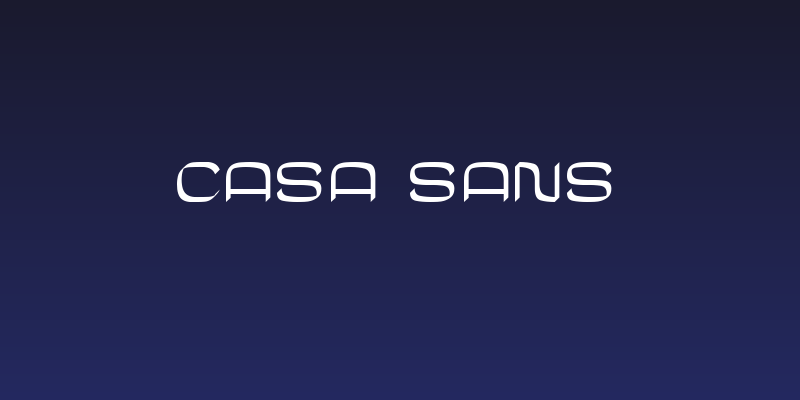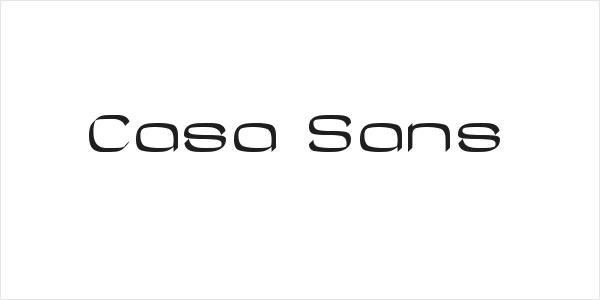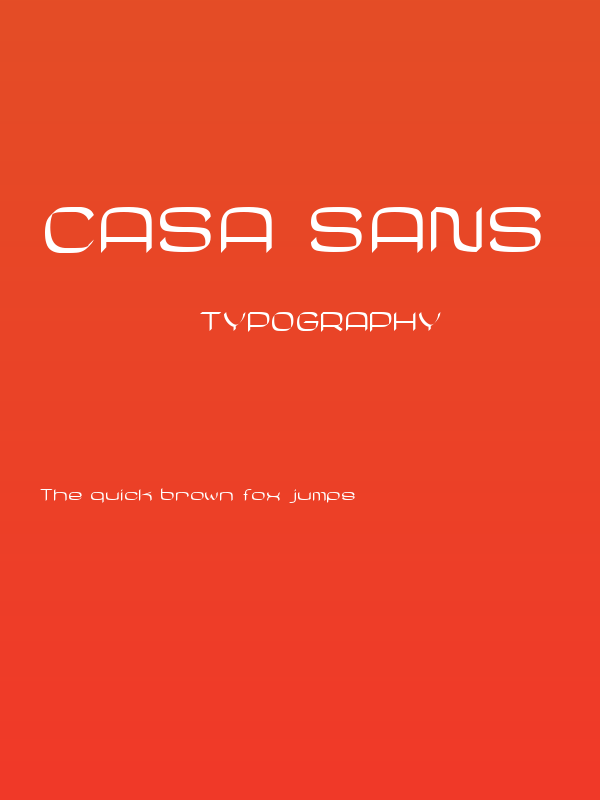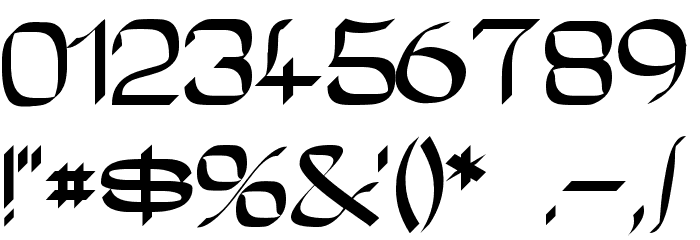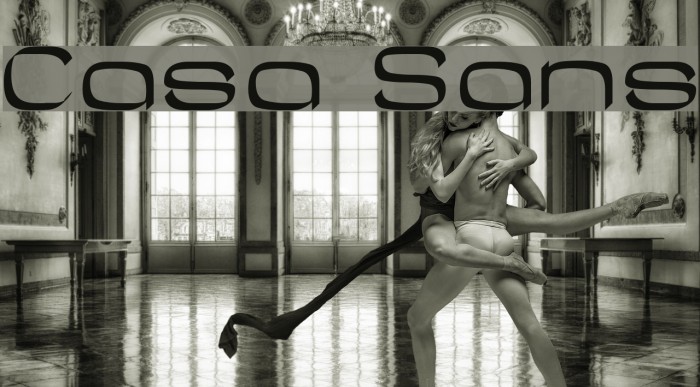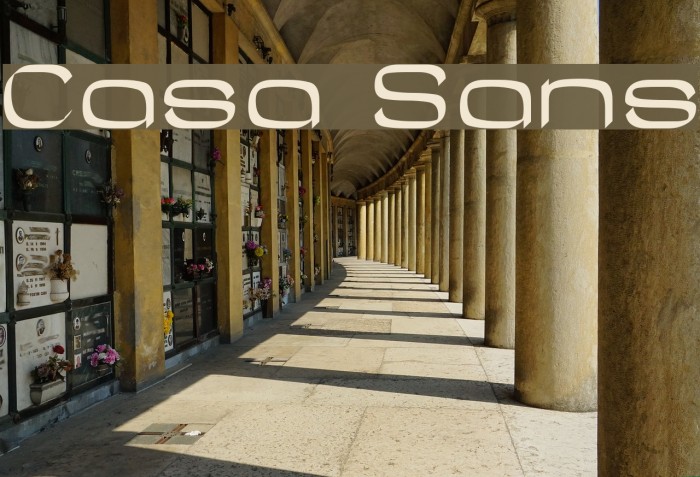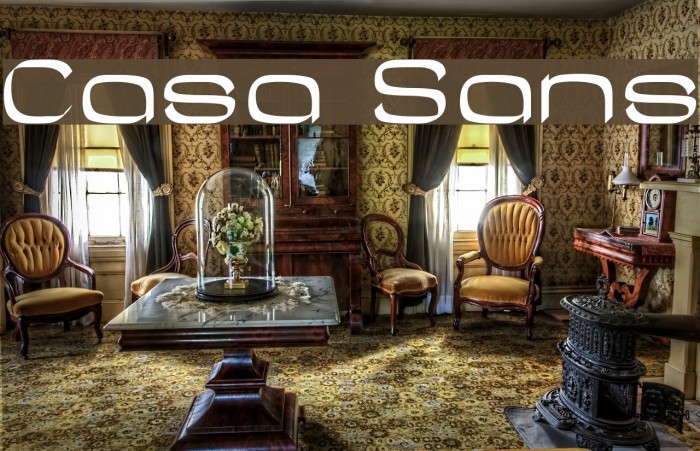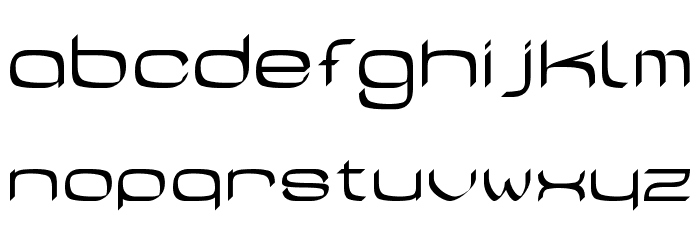
Casa Sans Font
Casa Sans Description
This font features a futuristic and sleek design, characterized by sharp angles and clean lines. The uppercase letters have a unique geometric style, with some characters incorporating cut-out sections that add a dynamic and modern feel. The lowercase letters maintain a consistent style, offering a smooth transition between characters. Numbers are bold and distinct, with a slightly wider stance that enhances readability. Special characters are designed to match the overall aesthetic, ensuring a cohesive look across all elements. The font's design is ideal for projects that require a contemporary and edgy appearance.
| Proposed Projects | Ideal for tech branding, modern advertising, and sci-fi themed designs. |